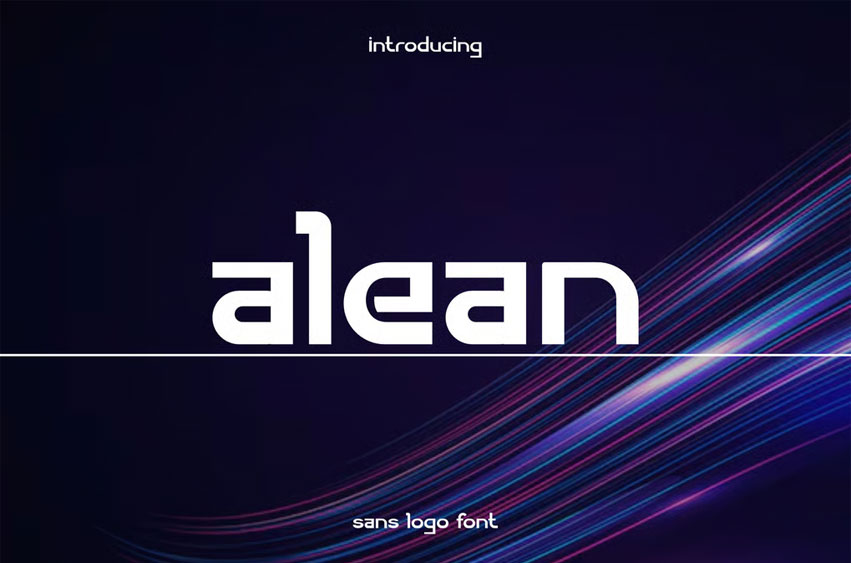
Alean Font Sans Logo Font is an awesome and authentic display font.
It fits in headlines, logos, posters, flyers, invitations, name cards, branding materials, print media, editorial layouts, and many more.